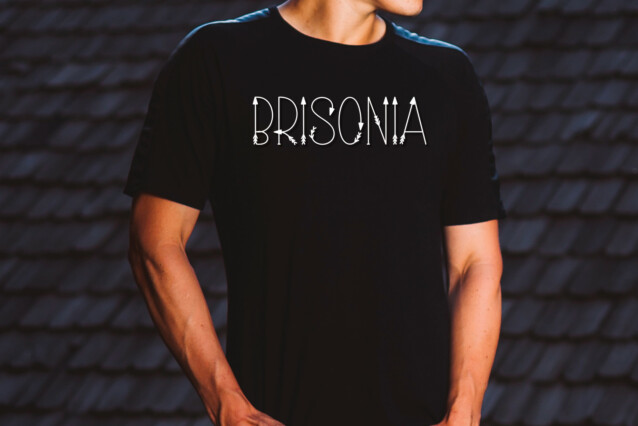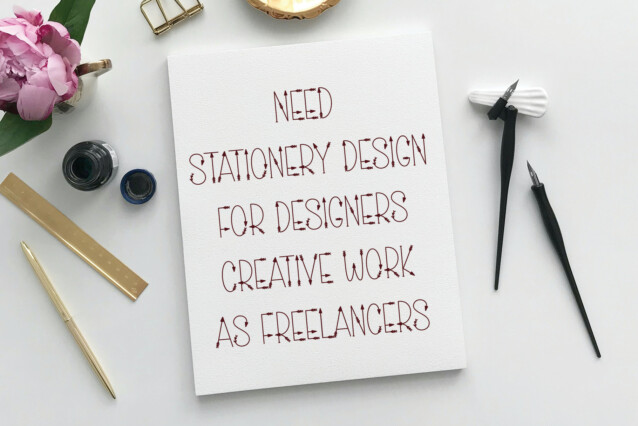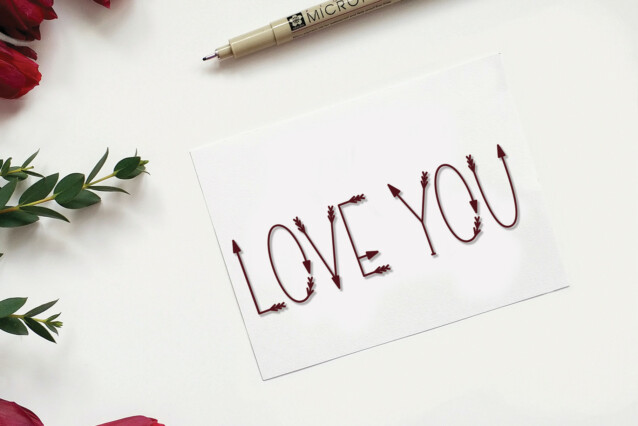
Love Arrow Display Font
Love Arrow Display Font is a lovely and cute handwritten display font with sweet arrow decorative elements. Add it to your crafty ideas and you will love the results!